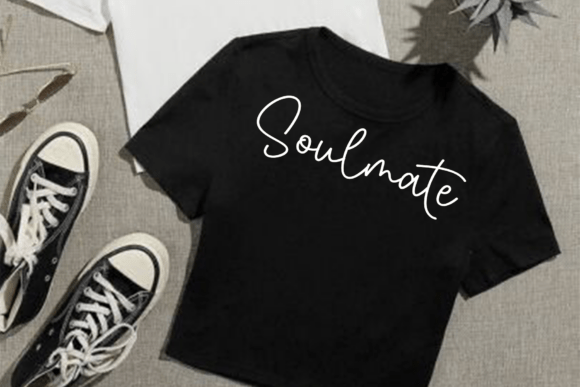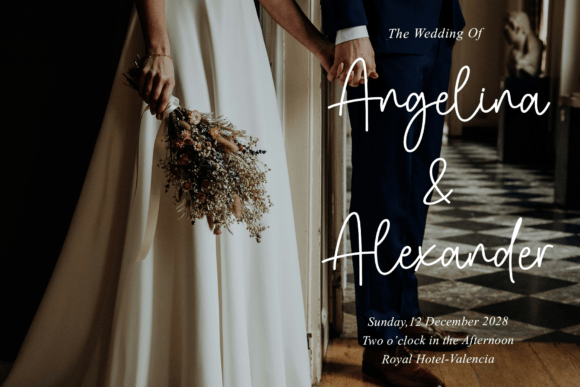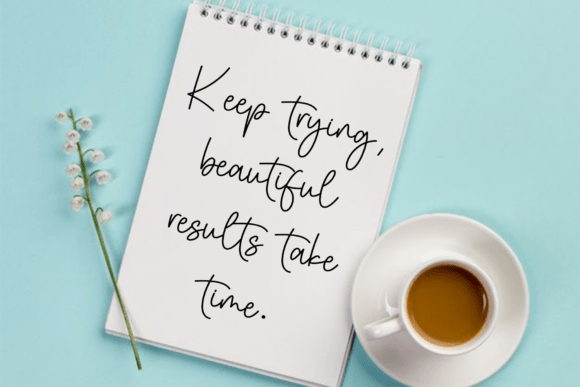
Introduction to Lightrain Font
Have you ever stared at a blank page, waiting for that perfect font to come along and bring your creative project to life? For designers, finding the right font can be a daunting task, but what if we told you that there’s a new design resource on the market that’s sure to elevate your work? Enter Lightrain Font, a stunning handwritten script font that exudes modern elegance and sophistication.
With its fluid, signature-like motion and delicate balance of tall ascenders and sweeping loops, Lightrain Font creates a unique visual flow that’s sure to leave a lasting impression. Whether you’re working on a luxury branding project, designing wedding stationery, or crafting high-end editorial content, this versatile font is the perfect choice for adding a touch of high quality and refinement to your work.
Key Features of Lightrain Font
- Unique, modern font style with a transparent background, perfect for minimalist designs.
- Designed to be highly legible, making it an ideal choice for body text, headings, and titles.
Honest Review: Lightrain Font
I recently had the chance to work with the Lightrain Font in one of my creative projects, and I must say it’s been a great addition to my design resource library.
What works well about this font is its clean and modern aesthetic, perfect for creating high-quality designs that require a touch of sophistication. The transparent background makes it easy to customize and integrate into various design elements. I particularly appreciate the free download option, which makes it accessible to designers of all levels.
- ✨ High-quality design suitable for creative projects
- ✨ Easy to customize with transparent background
However, I do have to mention a few limitations. The font selection is relatively limited, which may not be ideal for designers who prefer a wide range of options. Additionally, the font may not be suitable for text-heavy designs, as it can become difficult to read at smaller font sizes.
Overall, I’m impressed with the Lightrain Font, and I would definitely consider using it again in future projects. With its clean design and flexibility, it’s a great addition to any designer’s resource library.
Tips for Getting the Most Out of Lightrain Font
For the best results, use Lightrain Font in conjunction with a clean and simple design. This will allow the font to shine and add a touch of sophistication to your creative project. Experiment with different font sizes and styles to find the perfect balance for your design.
Lightrain Font is ideal for use in logos, brochures, presentations, reports, and other marketing materials. Its high quality design and transparent background make it perfect for overlaying text on images or other design elements.